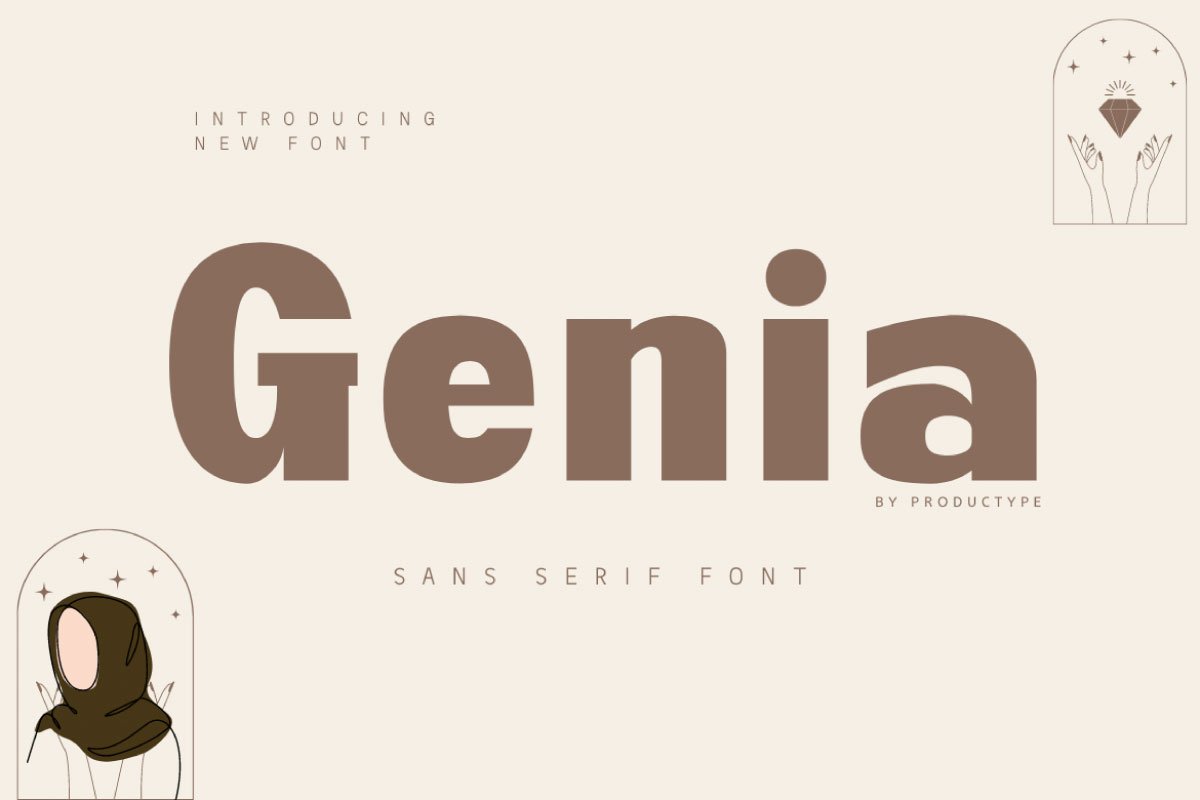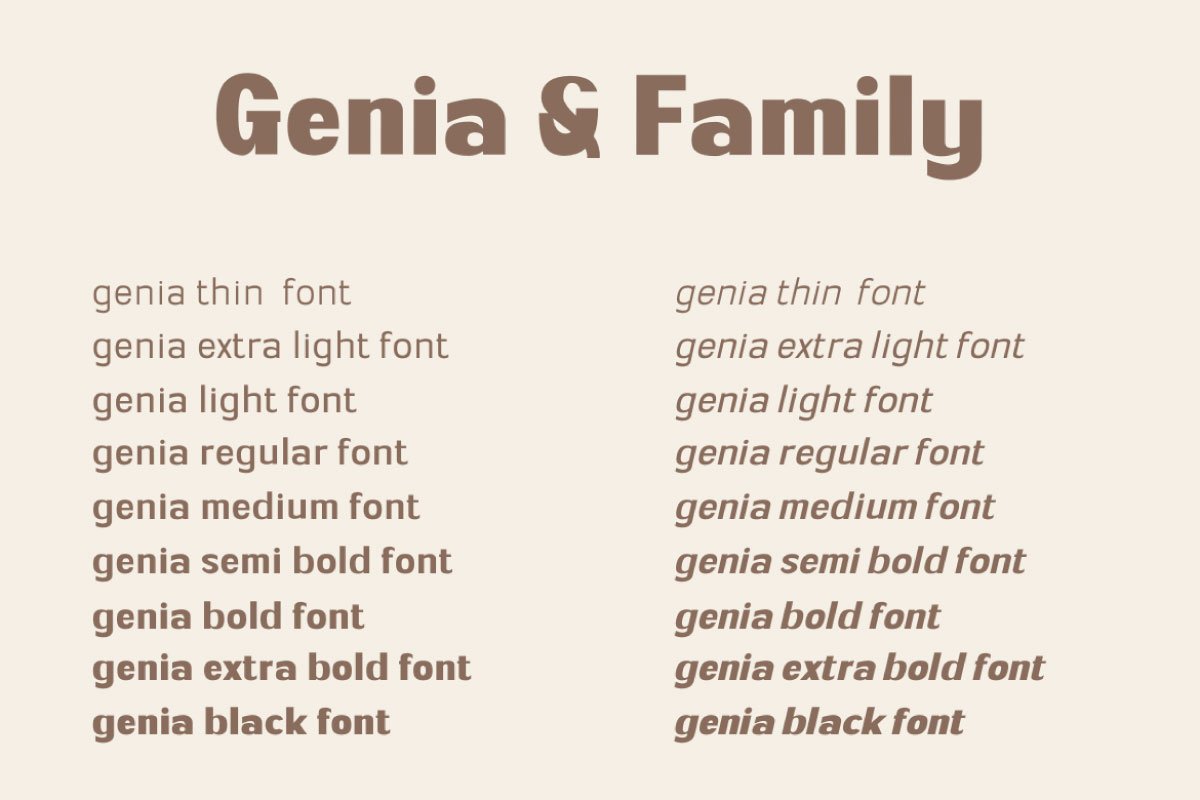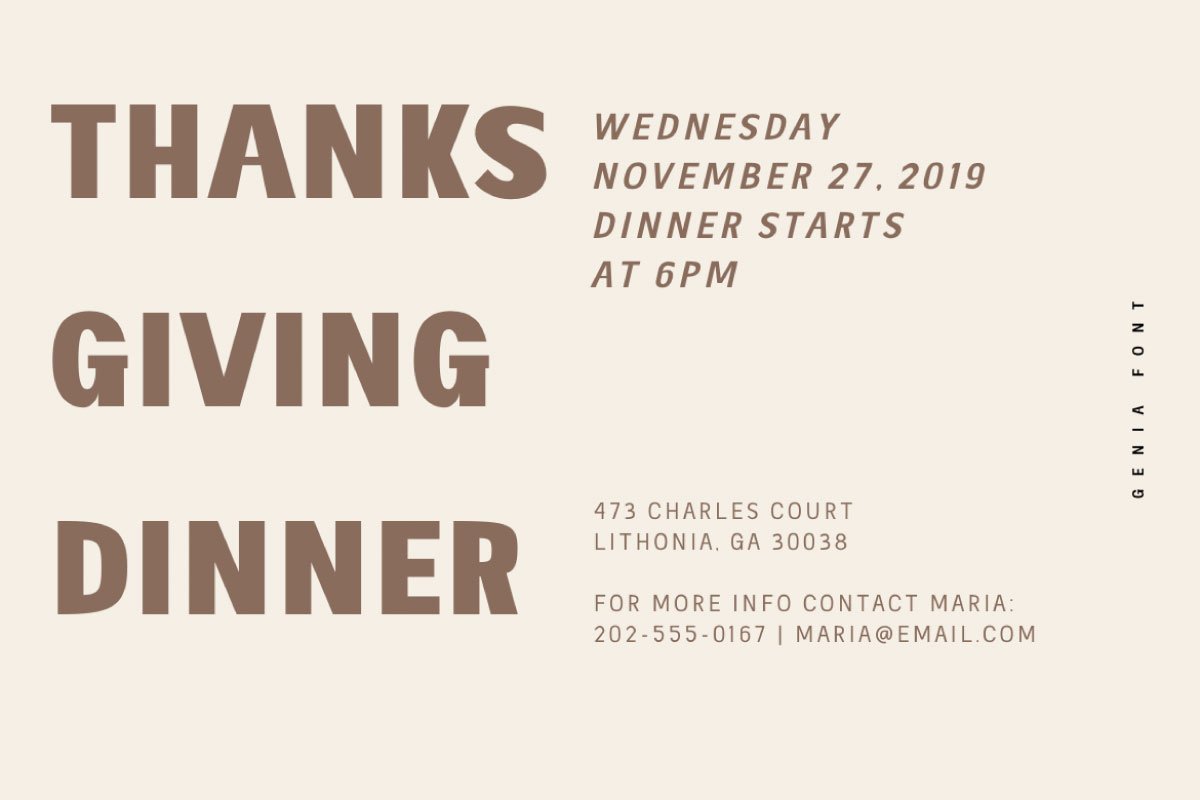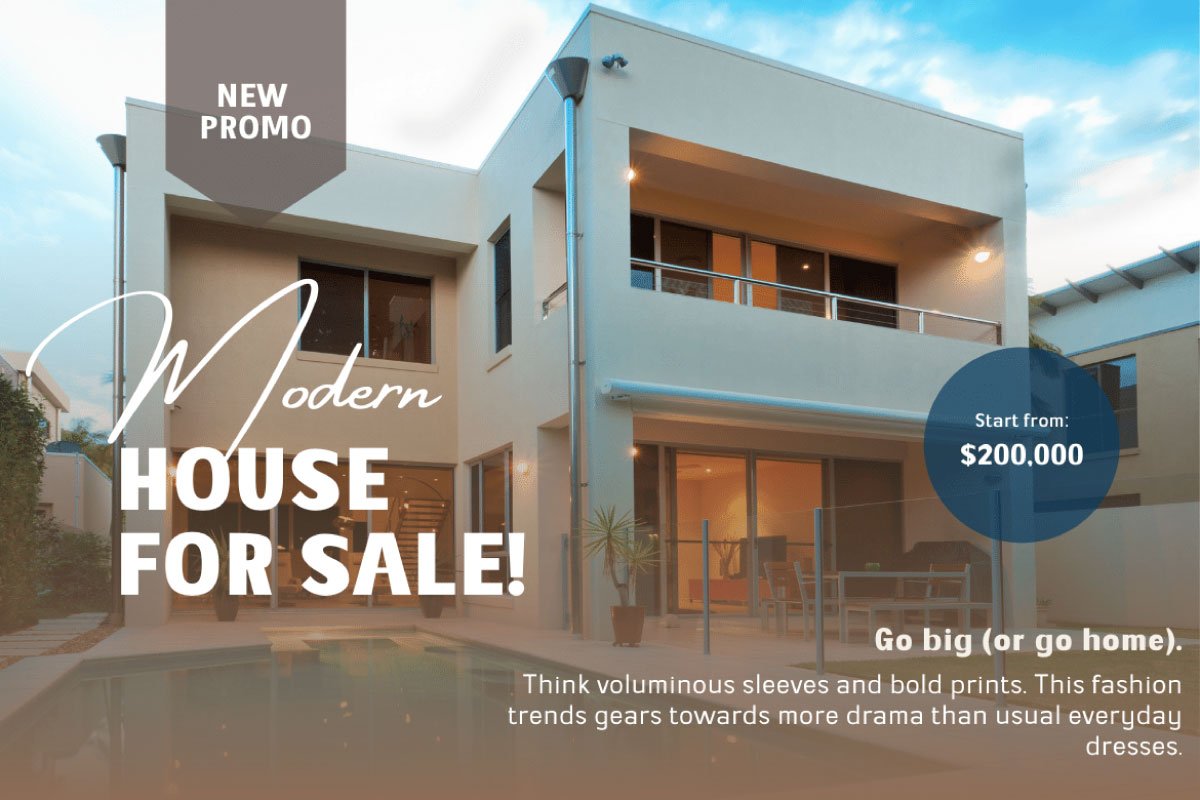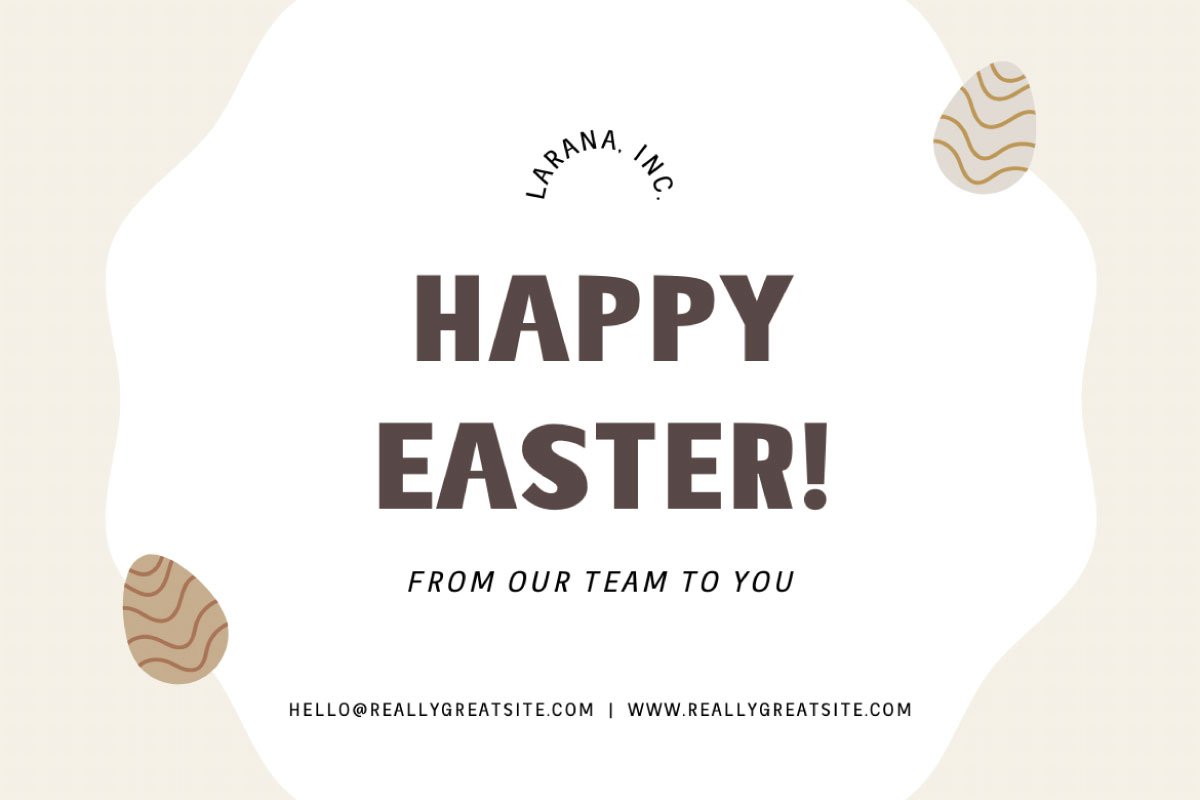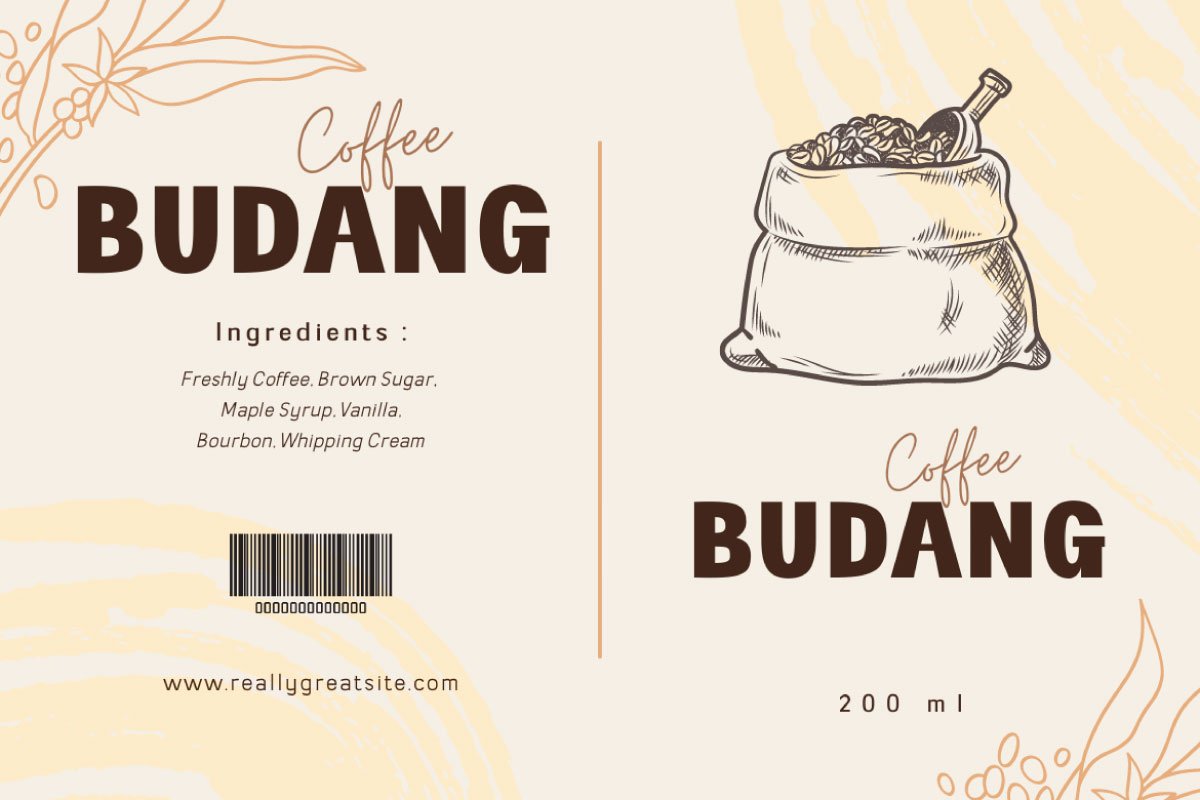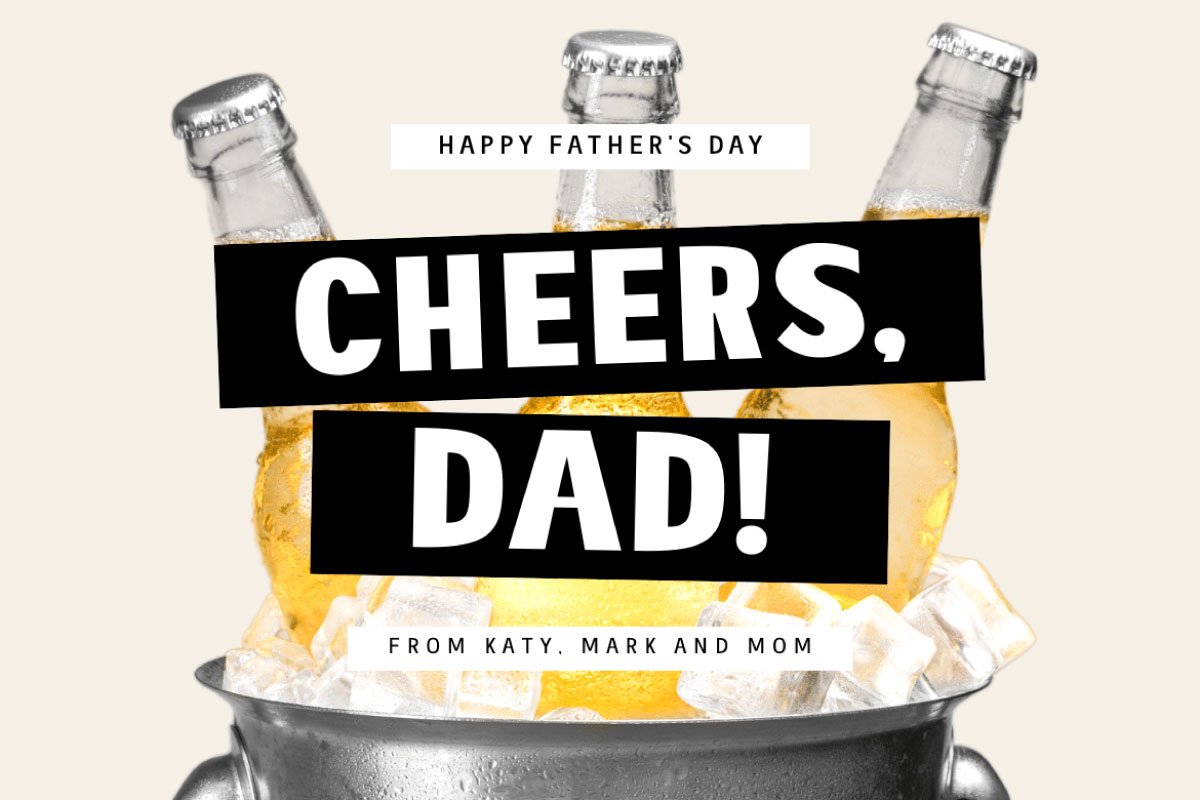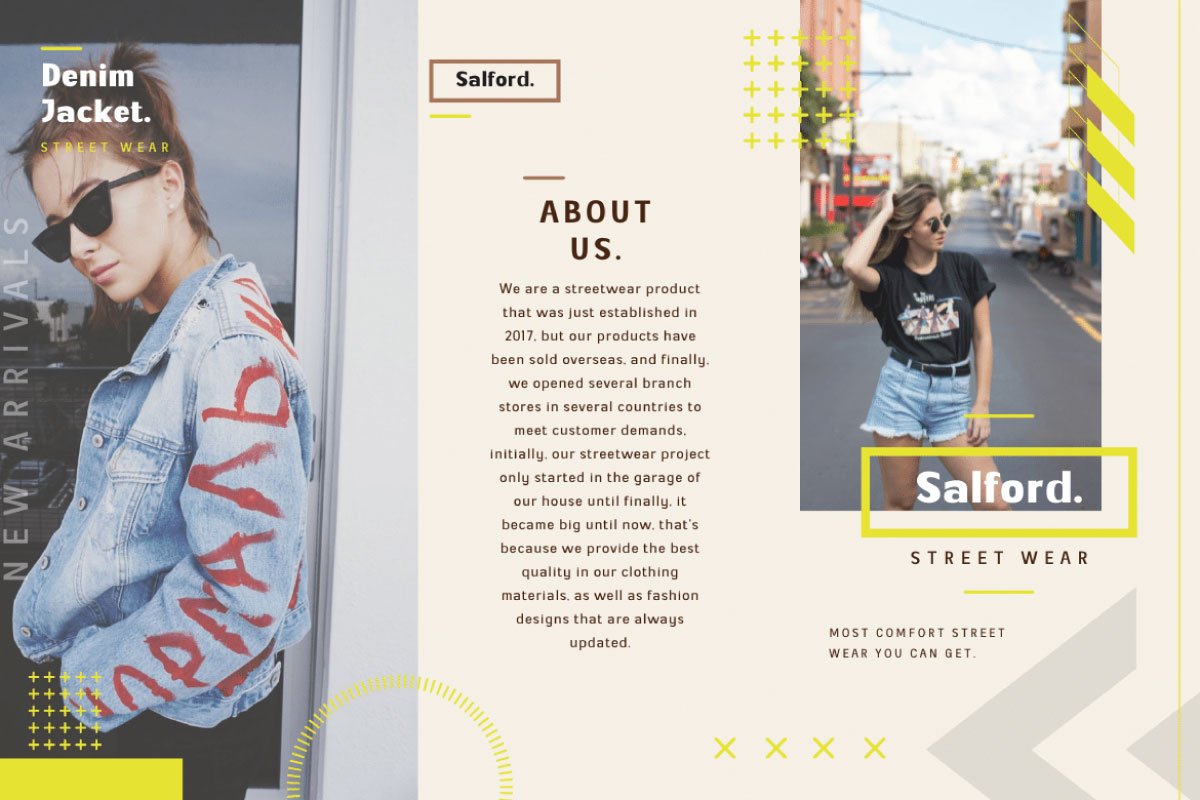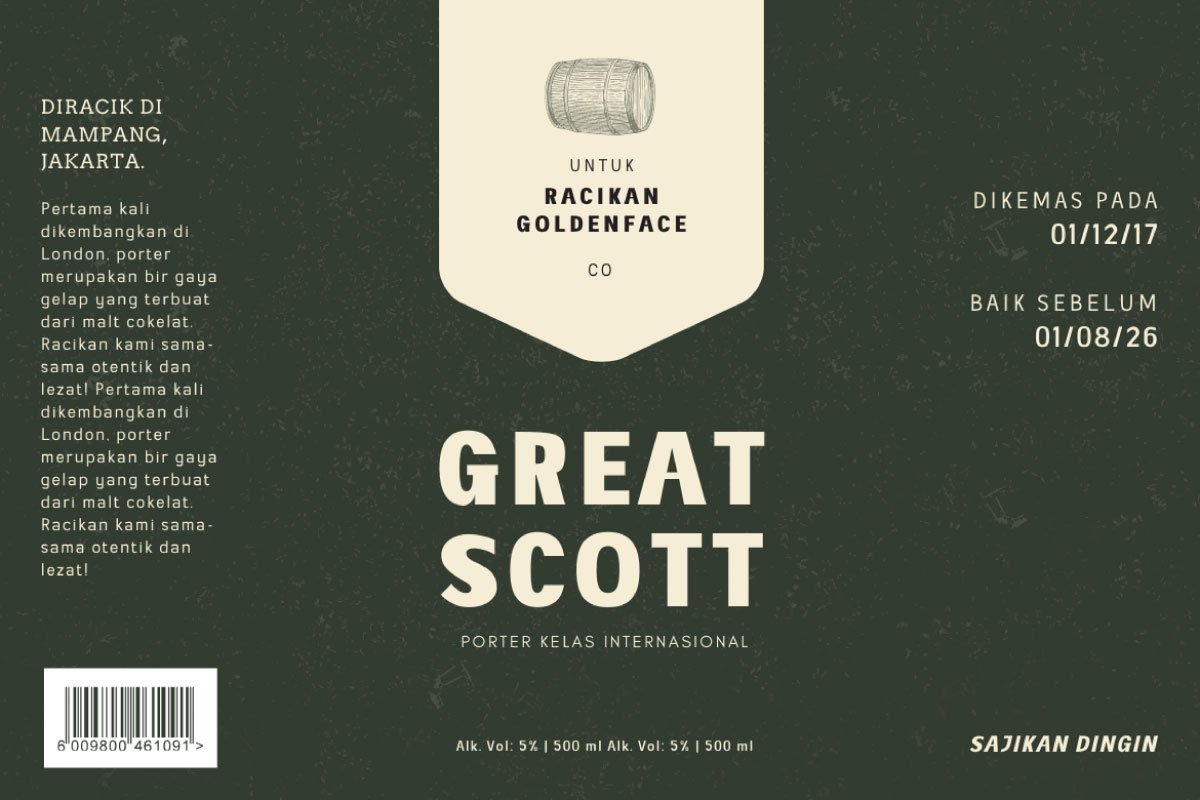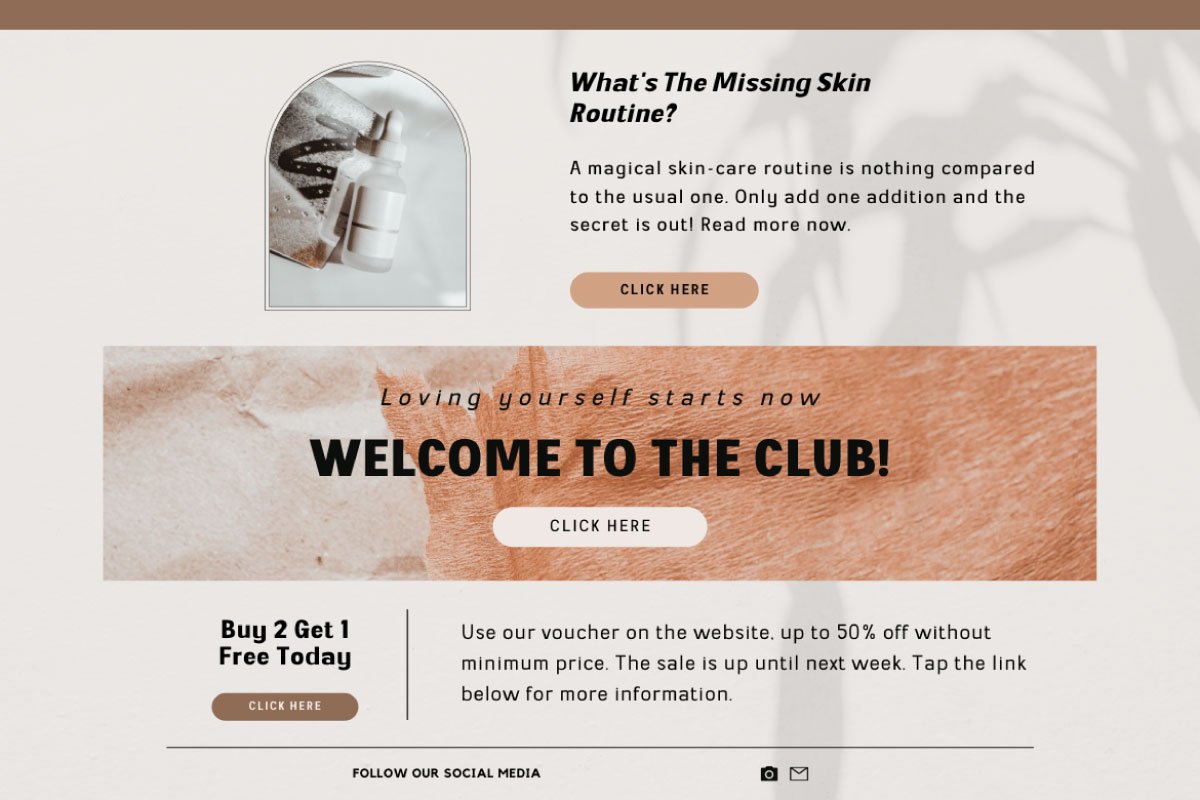
Genia – Sans Serif Family Font
Light
Light Italic
Regular
Italic
Black
Black Italic
Genia is an elegant and modern Sans Serif font family, designed to elevate your projects with its refined simplicity. Its clean lines and minimalist style make it a versatile choice for branding, editorial layouts, corporate presentations, and other professional or creative designs. With multiple weights and styles, Genia adapts effortlessly to any project, ensuring a polished and cohesive look.